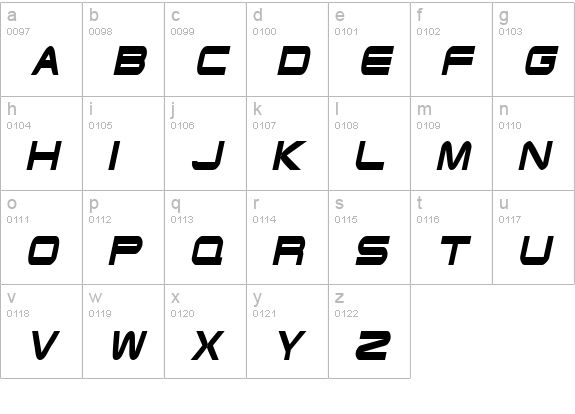
EndzoneCondensed Oblique Font Details
EndzoneCondensed Oblique is a distinctive, italic variant in the EndzoneCondensed typeface family \xE2\x80\x94 well suited to design and typography projects.
EndzoneCondensed Oblique font is a sleek and modern typeface that exudes a sense of sophistication and style. Its slanted design adds a dynamic and energetic touch to any text, making it perfect for branding, headlines, and other display purposes. This font features condensed letterforms that are space-saving yet highly legible, ensuring that your message is clear and impactful. The oblique style adds a subtle twist to the traditional condensed look, giving your designs a unique and contemporary edge. Best of all, EndzoneCondensed Oblique font is available for free download at FontsMarket.com. This means you can easily access this stylish typeface and use it in your projects without any cost. Don't miss out on this opportunity to elevate your designs with this versatile and eye-catching font.